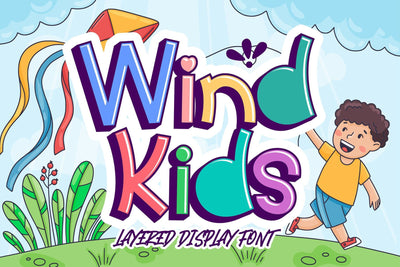
Wind Kids - Layered Display Font
"Wind Kids" is a cute layered display font that includes regular, inner, and shadow characters. This playful and versatile font is perfect for children's projects, adding a delightful touch to designs for kids' books, posters, educational materials, and more. The multiple layers offer creative flexibility, allowing you to combine styles for a dynamic and engaging look. Whether you're designing for a classroom, creating invitations for a children's party, or crafting whimsical posters, "Wind Kids" brings a fun and cheerful vibe to any project, making it a must-have for any designer working on kid-friendly content.